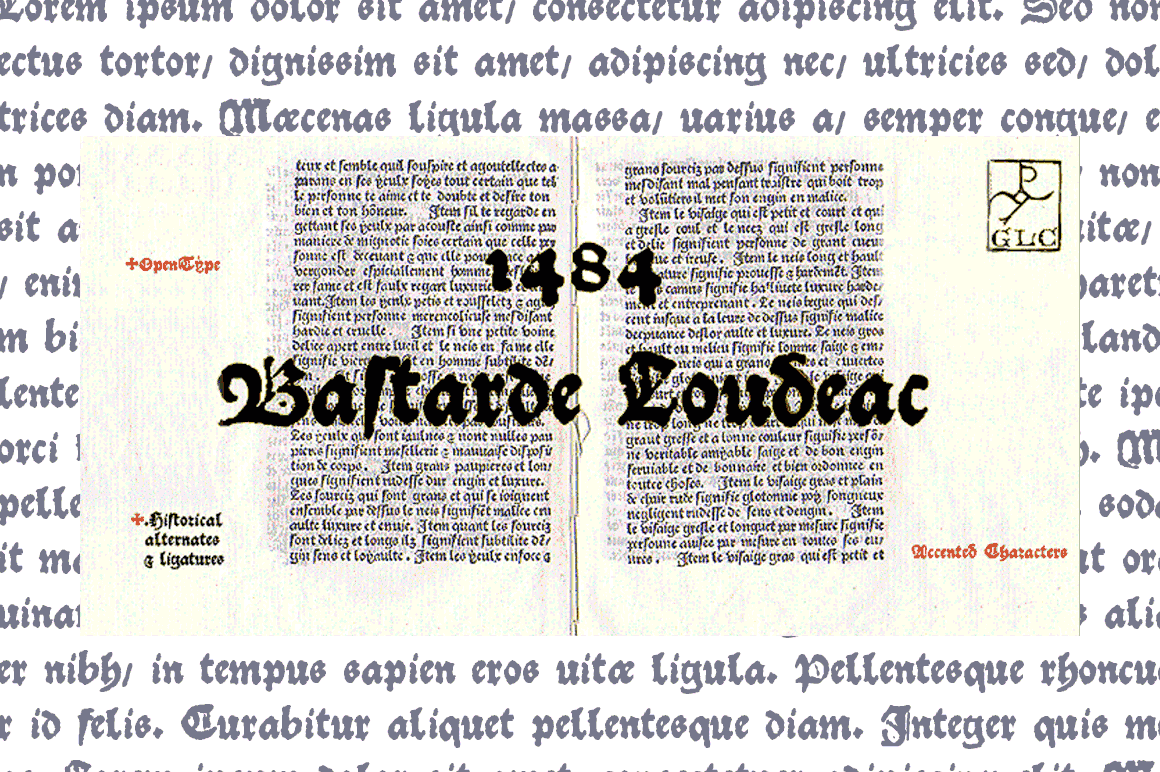
1484 Bastarde Loudeac
1484 Bastarde Loudeac is a font family published by GLC Foundry.
Font designed from that used in Brehan-Loudeac (Britanny, France) by Robin Fouquet and Jean Crès in years 1480s to print a lot of texts and books.
This font include “long s”, naturally, as typically medieval, and a few special characters and abreviations, also some variants, like for “d”, “r” or “v”. The small “y” is accented, just like in British alphabet of the time, though the texts were printed in French.
Added, a lot of accented characters no longer existing on this time. This font supports easily as large than small size, remaining readable, original and pretty.